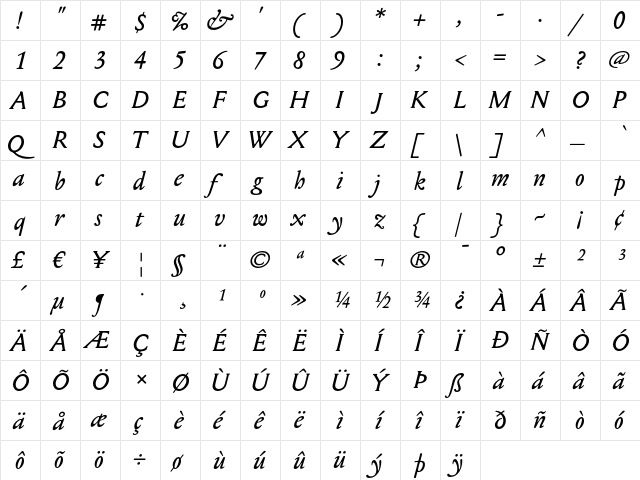
Mediaeval Italic
Design Context for Mediaeval Typeface
Mediaeval is a composed and adaptable typeface that performs quietly and consistently across a wide range of design contexts. Its italic angle brings a sense of urgency and motion to the letterforms.
Pro Tip: Use Mediaeval for emphasis, pull quotes, and subheadings where its slanted energy can add rhythm to the layout.